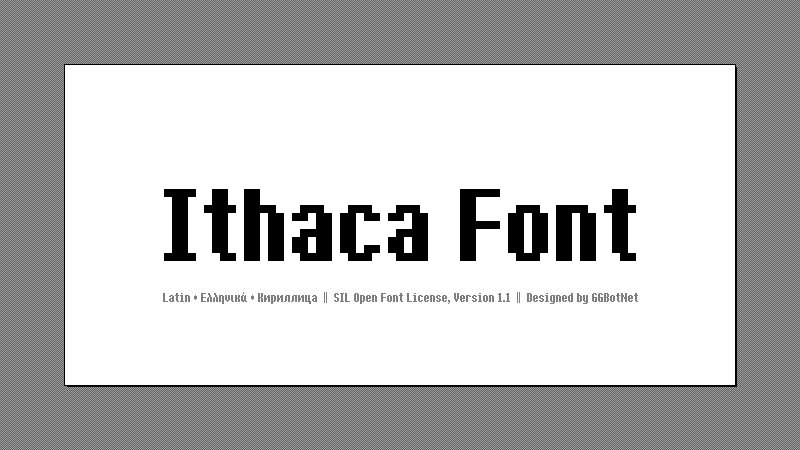
Ithaca font by GGBotNet is a free bitmap font reminiscent of retro digital displays and old-school gaming. With a pixelated aesthetic, it combines a technical edge with a nostalgic flair, making it an impactful and structured design choice. The font’s square, geometric appearance captures a unique blend of digital and retro vibes suitable for a wide array of design needs.
Ithaca is perfectly suited for design projects that want to harness a retro, pixelated aesthetic. This includes video game designs, digital artworks, websites, app interfaces, posters, packaging, branding, and even modern advertisements and book covers with a nostalgic touch.